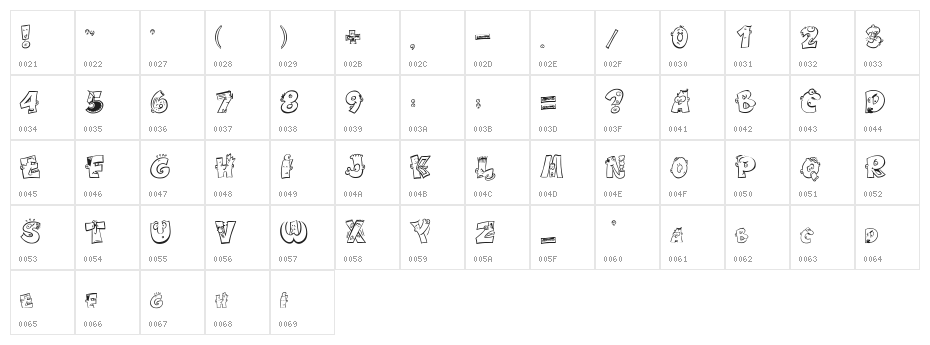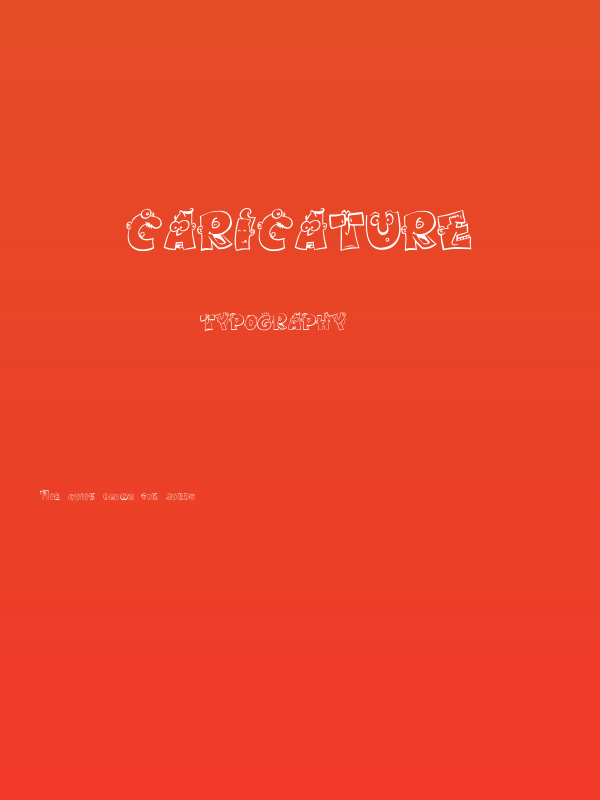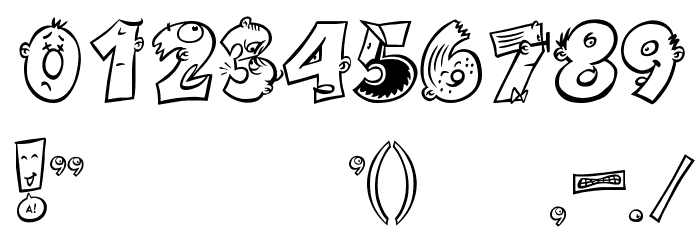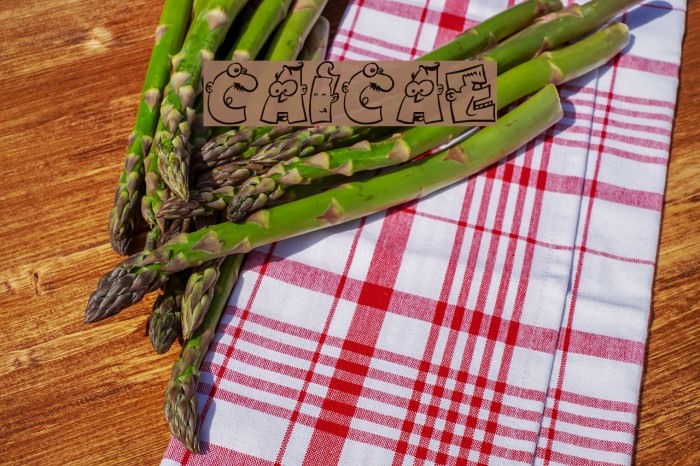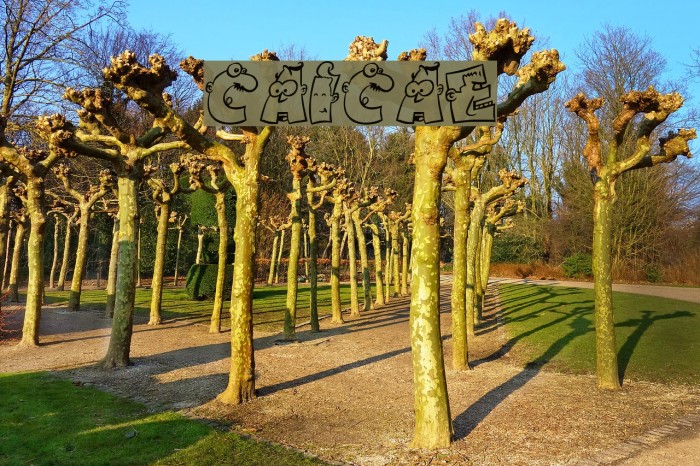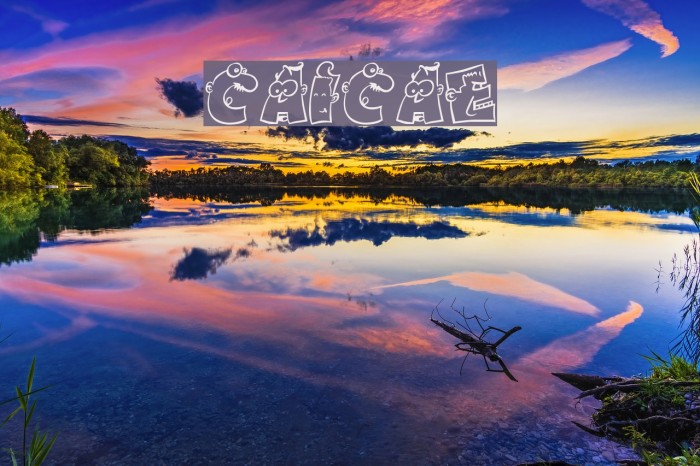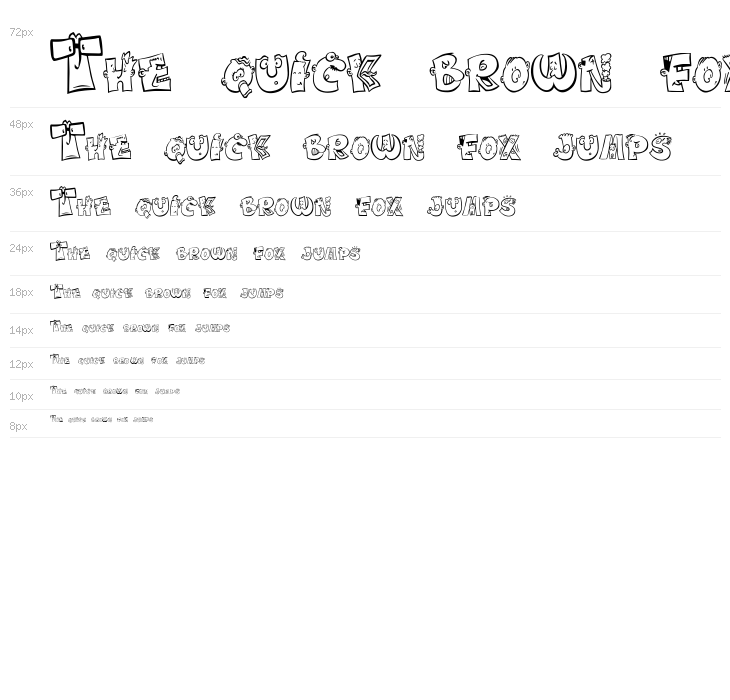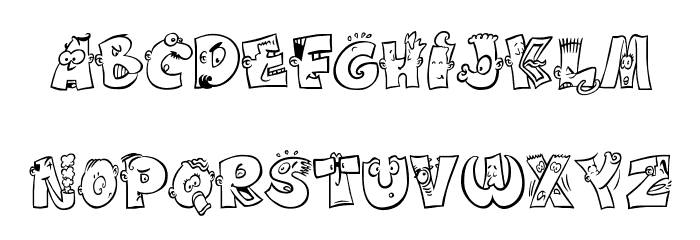
caricature Font
caricature Description
This playful and whimsical font is characterized by its cartoonish and exaggerated style. Each letter is uniquely designed with quirky facial expressions and humorous elements, making it highly distinctive and engaging. The font features bold, thick strokes with a hand-drawn appearance, adding to its charm and appeal. The characters are creatively embellished with various doodles and patterns, giving them a lively and animated feel. This font is perfect for projects that require a fun and lighthearted touch, such as children's books, comic strips, or playful branding materials.
| Overall Style | Cartoonish, Playful, Whimsical |
| Proposed Projects | Ideal for children's books, comic strips, playful branding, and humorous posters. |